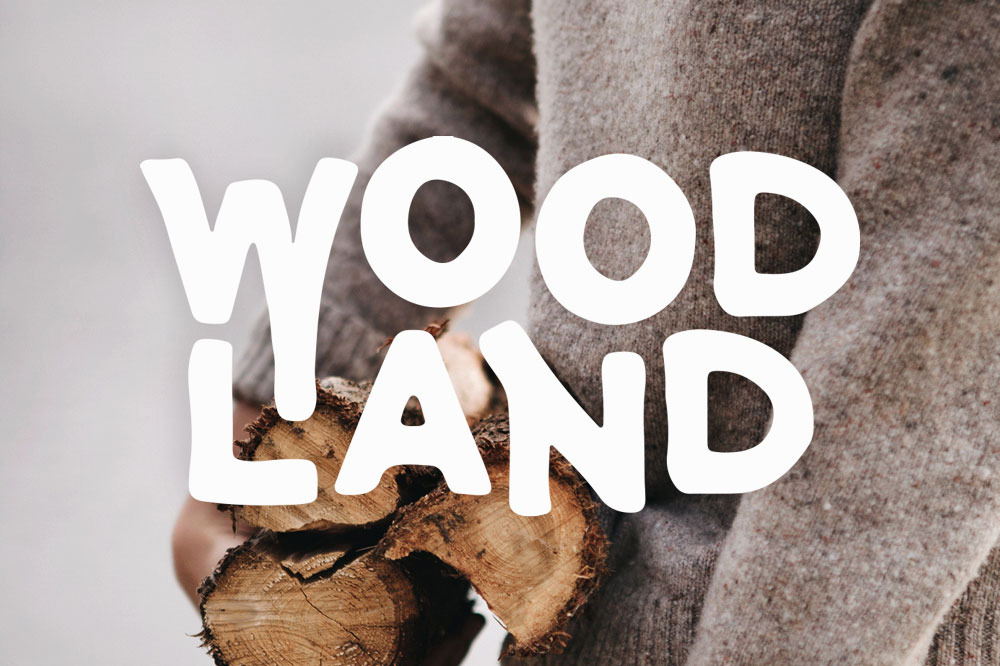
Woodland Font
Woodland is a fully hand-crafted sans serif typeface, including three weights: thin, bold and outline. Each of the three fonts contains an uppercase alphabet, numbers, symbols and special characters.